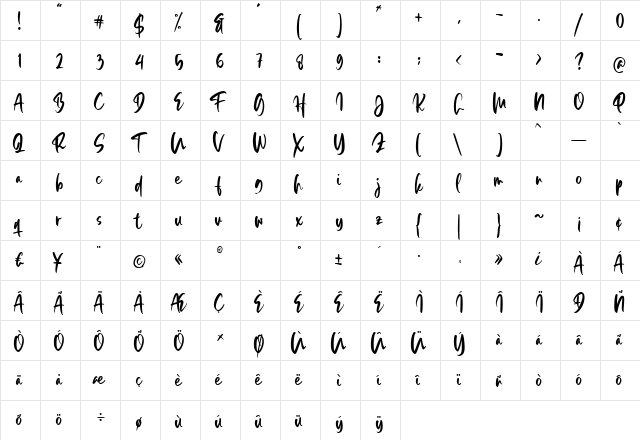
Glibwood Anthem Regular
Design Context for Glibwood Anthem Typeface
Glibwood Anthem echoes the hand-painted signage and woodblock typography of the American frontier, with a warm, rugged personality.
A natural fit for craft spirits, ranch branding, rodeo events, and Americana-inspired design work.
Font Pairing: Combine Glibwood Anthem with a simple slab or neutral sans — period-accurate companions reinforce the vintage feel without competing for attention.
Pro Tip: Use Glibwood Anthem for short, impactful bursts of text — it shines in poster headlines and product names rather than extended copy.